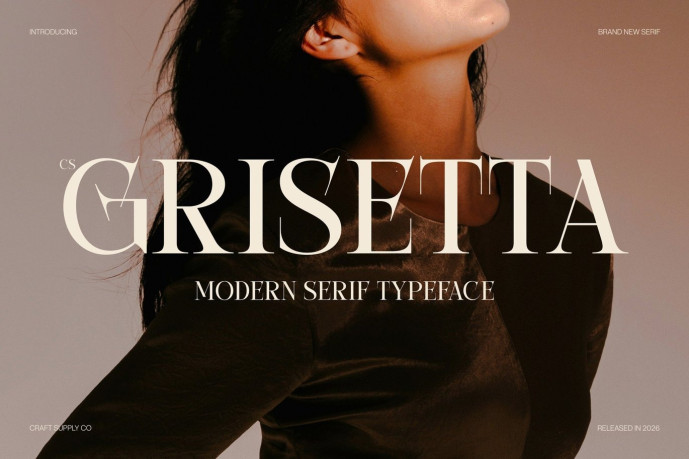
Grisetta – Modern Serif Font
Designer: Craft Supply Co.
CS Grisetta – Modern Serif Font: Where Refined Elegance Meets Contemporary Sophistication Sharp Angles and Elongated Serif Details This is a modern serif font distinguished by its sharp angles, slim proportions, and elegantly elongated serifs. These refined design elements create a sophisticated visual identity that feels graceful, polished, and distinctly contemporary. The font’s delicate balance of structure and elegance gives it a timeless appeal while maintaining a fresh, modern presence.
Elegant Proportions with Professional Presence This font combines slender letterforms with carefully crafted details that enhance readability and visual harmony. Its refined silhouette creates a sense of luxury and confidence, making it ideal for projects that require a premium and distinguished typographic voice.
Contemporary Style with Timeless Appeal This font delivers a typographic identity that feels stylish, versatile, and enduring. Its graceful forms and clean execution make it suitable for both editorial compositions and high-end branding, offering a perfect balance between tradition and contemporary design.
Perfect for Luxury packaging, Magazines, and High-End Design Perfect for luxury packaging, fashion campaigns, magazine layouts, editorial design, premium packaging, invitations, beauty and lifestyle brands, corporate identities, and upscale marketing materials. Its elegant serif forms make it ideal for logos, headlines, titles, and visual identities that seek to communicate sophistication, exclusivity, and professionalism.